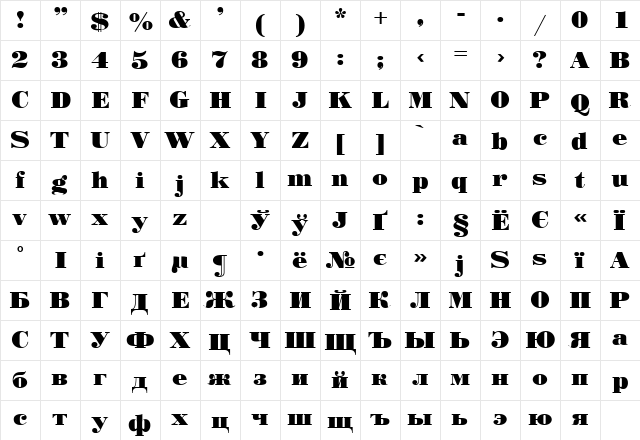
Poster Regular
Design Context for Poster Typeface
Poster offers clean, dependable letterforms without strong stylistic allegiance, making it a practical choice for designers who need flexibility.
Pro Tip: Use Poster in both headline and body roles to test its range before committing to a single application.